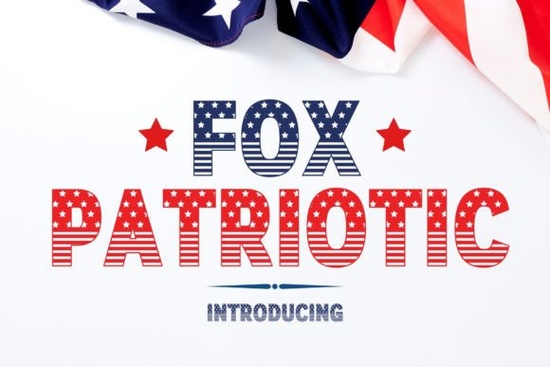
If you're working on a design that celebrates American heritage whether it’s for the Fourth of July, Veterans Day, or a local community event the Fox Patriotic Font offers a distinctive way to add visual meaning without overcomplicating your layout. This decorative typeface weaves in subtle American flag motifs directly into its letterforms, giving your headlines and titles an instant sense of national pride while keeping them readable and stylish.
Unlike generic script or block fonts, Fox Patriotic brings thematic relevance right into the characters themselves. The red, white, and blue elements are integrated thoughtfully not as loud overlays, but as part of each glyph’s structure. That makes it especially useful for designers who want their message to feel authentic rather than just festive.
When should you use a themed font like this?
Themed fonts work best when they support your message, not distract from it. Fox Patriotic shines in contexts where patriotism is central:
- Holiday graphics for Independence Day, Memorial Day, or Labor Day promotions
- Event banners for parades, veteran appreciation ceremonies, or school history projects
- Print-on-demand products like T-shirts, mugs, or posters targeting U.S.-focused audiences
- Small business signage during patriotic sale events or community celebrations
Because it’s a display font, it’s not meant for body text or long paragraphs. Stick to short phrases, names, or slogans ideally under 10 words to maintain clarity and impact.
How does it compare to other decorative fonts?
If you’ve browsed Creative Fabrica’s decorative font collection, you might also like Rosie Font, which leans into vintage charm with soft curves and hand-lettered warmth. While Rosie works well for retro Americana or nostalgic branding, Fox Patriotic is more direct it’s built for moments when you want to signal pride in country, service, or tradition without needing extra icons or illustrations.
Both fonts serve different moods within the same broad category. Choosing between them comes down to whether your project needs subtle elegance (Rosie) or bold symbolism (Fox Patriotic).
Is it easy to use for beginners?
That said, keep these tips in mind:
- Avoid tiny sizes. The intricate details may blur below 36pt, depending on your output method.
- Pair it wisely. Use a clean, neutral sans-serif (like Montserrat or Open Sans) for supporting text to avoid visual clutter.
- Test print or mockup first. Colors may shift slightly based on your printer or fabric type, especially if you’re using sublimation or heat transfer vinyl.
For crafters using cutting machines, remember that highly detailed fonts can be tricky to cut cleanly in small sizes. If you’re making iron-on designs for kids’ shirts or tote bags, consider simplifying or outlining the text first.
Ultimately, fonts like Fox Patriotic aren’t just about aesthetics they help you connect with your audience on an emotional level. When someone sees a well-placed “Thank You, Veterans” sign in this typeface at a community center, it feels intentional, respectful, and grounded.
Before you start your next patriotic project:
- ✅ Test readability at your final output size
- ✅ Pair with simple, high-contrast background colors (navy, white, or kraft paper work well)
- ✅ Save a backup of your design with outlined text if sharing files with printers or collaborators
With those steps covered, you’ll be ready to create something meaningful and memorable that honors both your craft and the occasion.